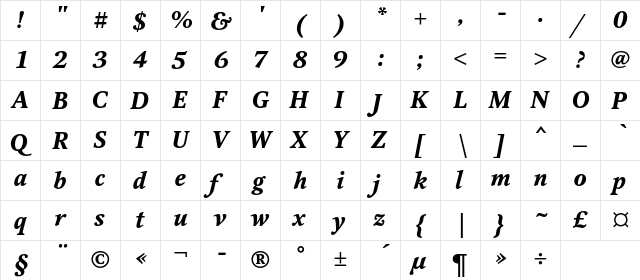
OctavaC Bold Italic
Design Context for OctavaC Typeface
OctavaC is a composed and adaptable typeface that performs quietly and consistently across a wide range of design contexts. The dynamic lean of this cut emphasises speed and emphasis in any layout. The heavy weight commands attention and anchors typographic hierarchies.
Pro Tip: Use OctavaC for emphasis, pull quotes, and subheadings where its slanted energy can add rhythm to the layout.